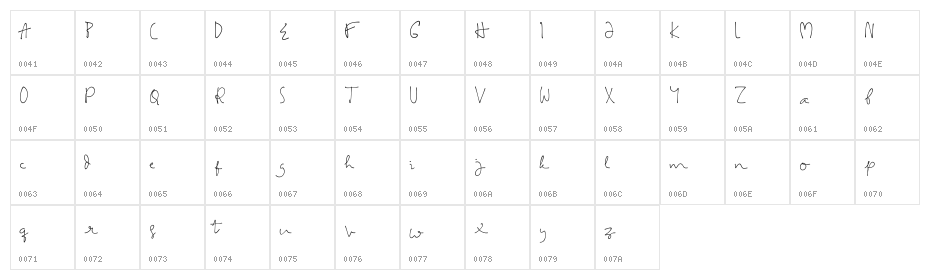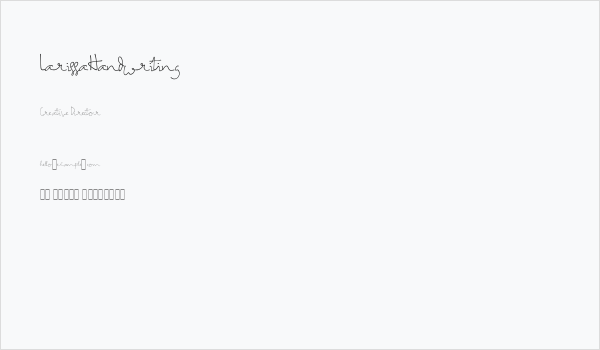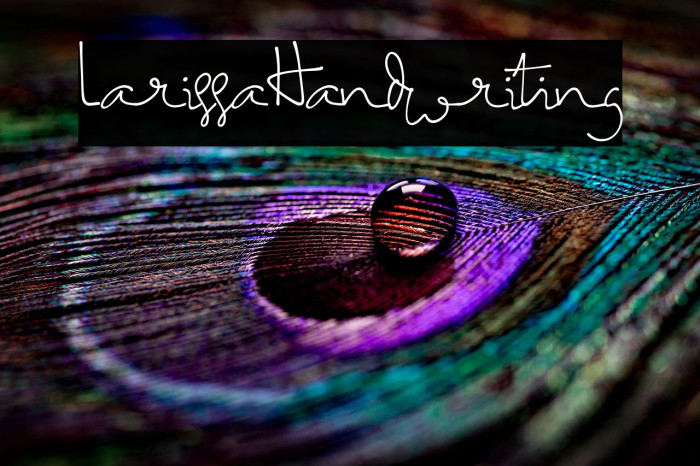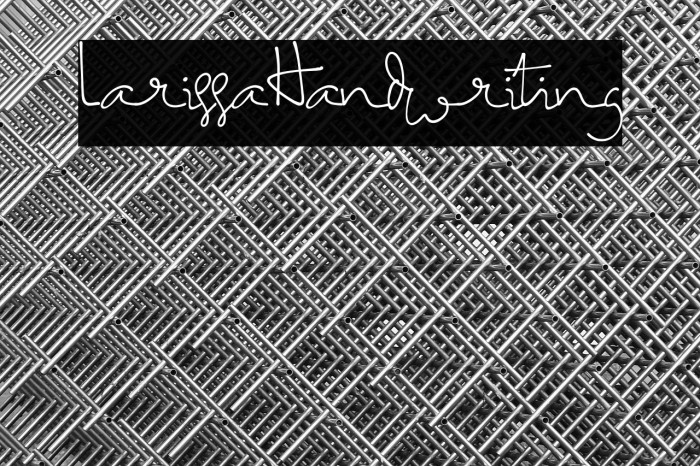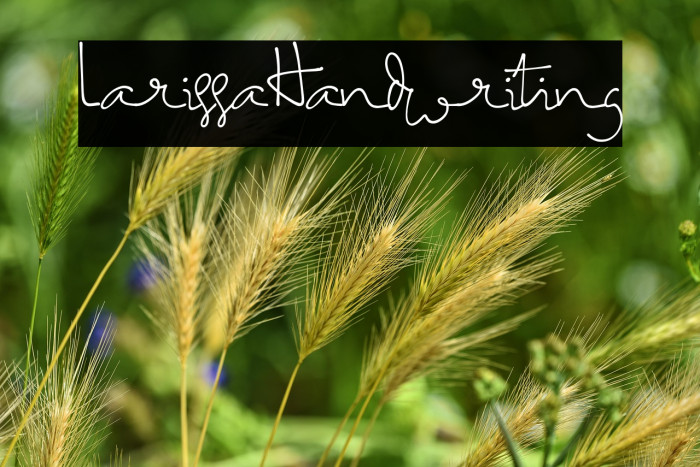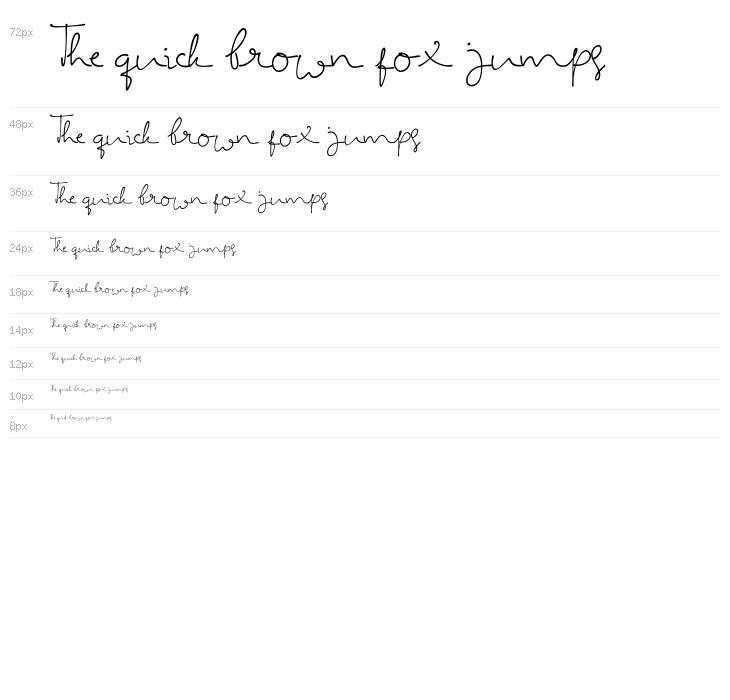
LarissaHandwriting Font
LarissaHandwriting Description
This font exudes a casual, handwritten style with a playful and whimsical touch. The characters are fluid and interconnected, resembling natural handwriting with a personal flair. Each letter has a unique, slightly irregular form, adding to the authenticity and charm of the script. The strokes are thin and consistent, creating a delicate appearance. The uppercase and lowercase letters maintain a cohesive style, while the numbers and special characters blend seamlessly with the overall design. This font is perfect for projects that require a personal, informal, and approachable feel.
| Overall Style | Casual, Whimsical |
| Use Case | Logos, Invitations, Personal Notes |
| Proposed Projects | Ideal for greeting cards, personal notes, invitations, and creative projects that require a personal touch. |